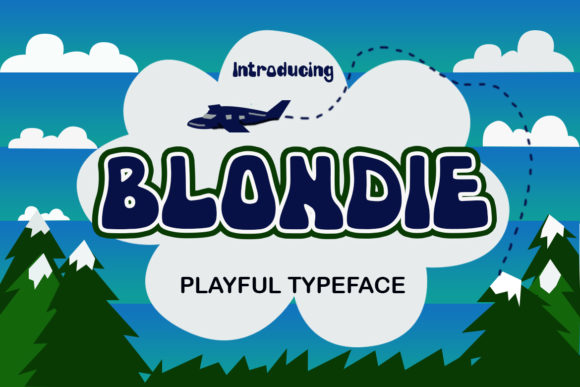
The Blondie Font: A Playful and Sweet Addition to Your Design Toolkit
I’ll never forget the time I was working on a project for a children’s birthday party invitation. I had the design concept all sorted out, but I was struggling to find the perfect font to bring it all together. The design needed to be playful, friendly, and sweet – just like the birthday girl! That’s when I stumbled upon the Blondie font, and it instantly became the missing piece to my design puzzle.
Blondie is a display font that embodies all the qualities I was looking for: playful, friendly, and sweet. Its unique charm makes it perfect for a wide variety of projects, from party invitations to branding, packaging, and more. In this article, I’ll share my experience with the Blondie font, its features, and how to make the most of it in your designs.
An Honest Review of Blondie Font
What I Love About Blondie Font
- ✨ Unique and playful design that adds a touch of whimsy to any project
- ✅ Highly legible, even at larger font sizes
- 💕 Friendly and sweet aesthetic that’s perfect for projects that require a personal touch
- 🎉 Extensive character set, including glyphs and stylistic alternates
While Blondie font is an excellent addition to any design toolkit, there are a few things to keep in mind:
- 🤔 Limited suitability for body text due to its display font nature
- ⚠️ May not be the best choice for projects that require a more formal or professional tone
The Designer Inspiration Behind Blondie Font
The Blondie font was designed with the intention of creating a playful and friendly display font that’s perfect for a wide range of projects. The designer aimed to create a font that’s both fun and elegant, making it suitable for everything from party invitations to branding and packaging.
Q: What type of projects is Blondie font best suited for?
A: Blondie font is perfect for projects that require a playful, friendly, and sweet aesthetic, such as party invitations, branding, packaging, and more.
Q: Can I use Blondie font for body text?
A: While Blondie font is highly legible, it’s primarily designed as a display font. It’s best suited for headlines, titles, and short paragraphs of text.
Q: Does Blondie font come with OpenType features?
A: Yes, Blondie font comes with a range of OpenType features, including glyphs and stylistic alternates.